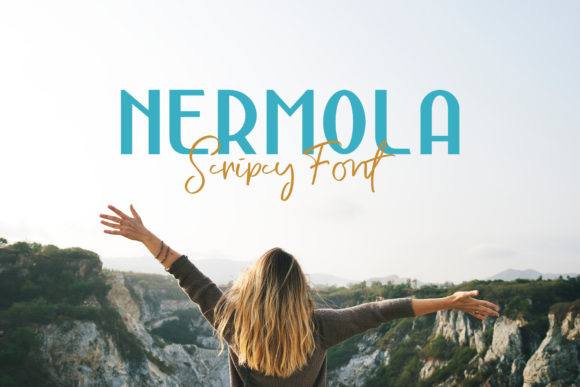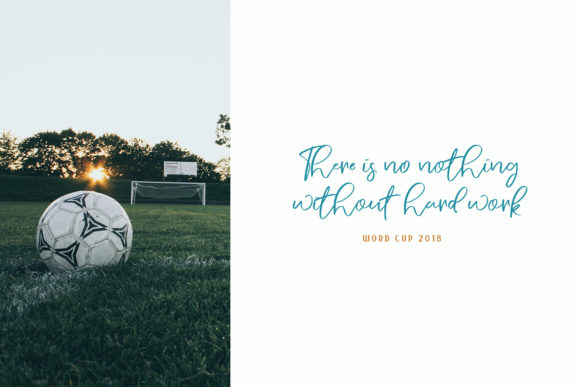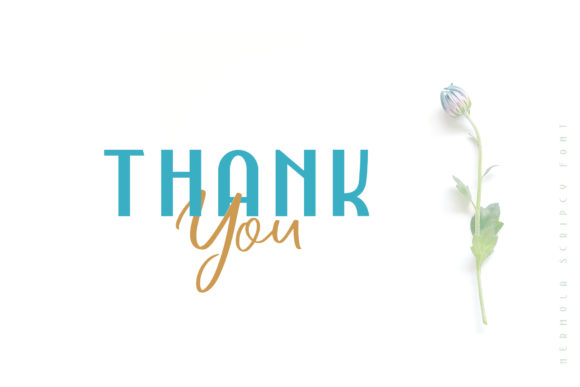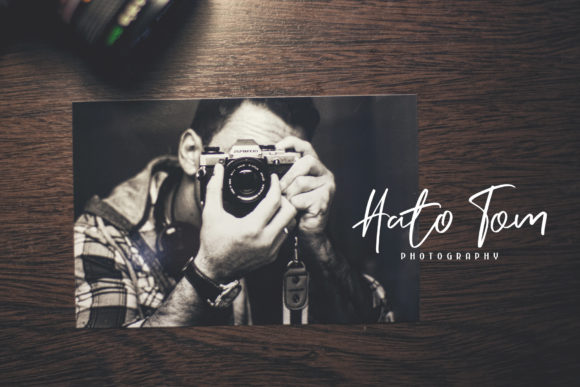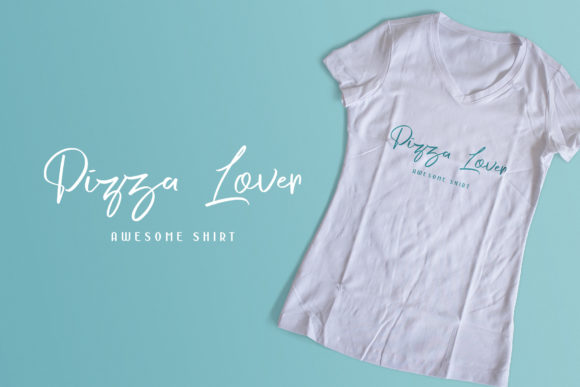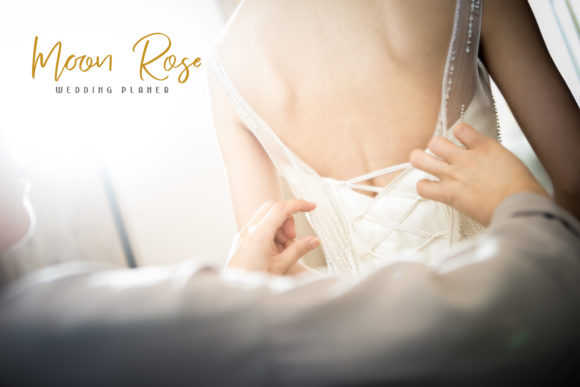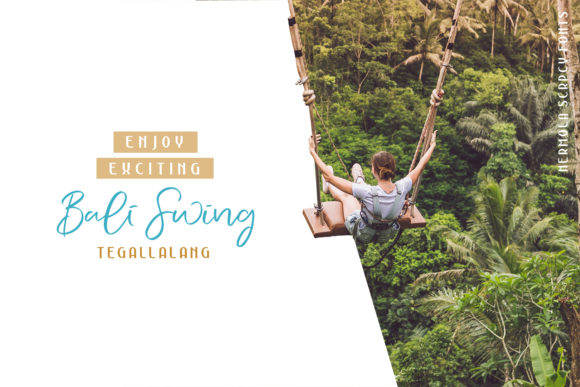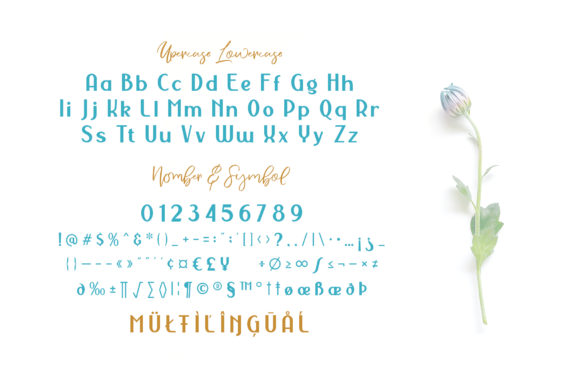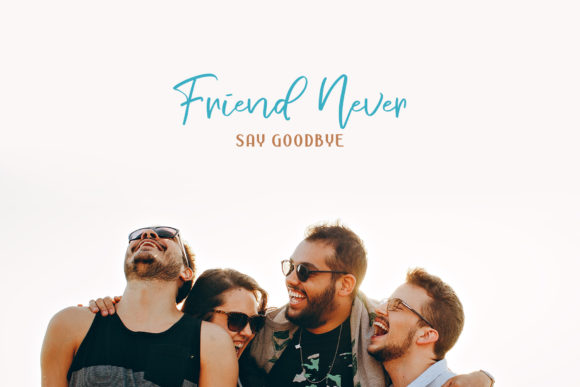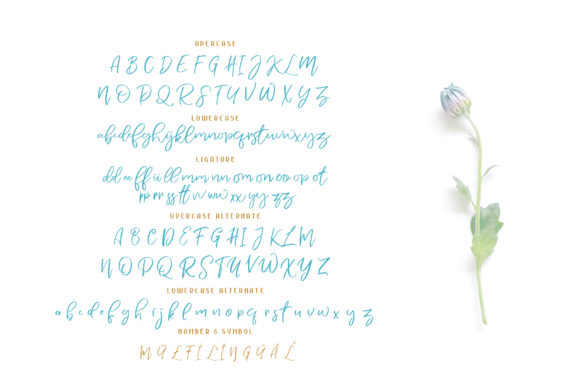
Nermola Duo Font
About Nermola Duo Font
Nermola is a stunning font duo, featuring an authentic script and modern sans serif font. Combine these fonts to create stunning results!